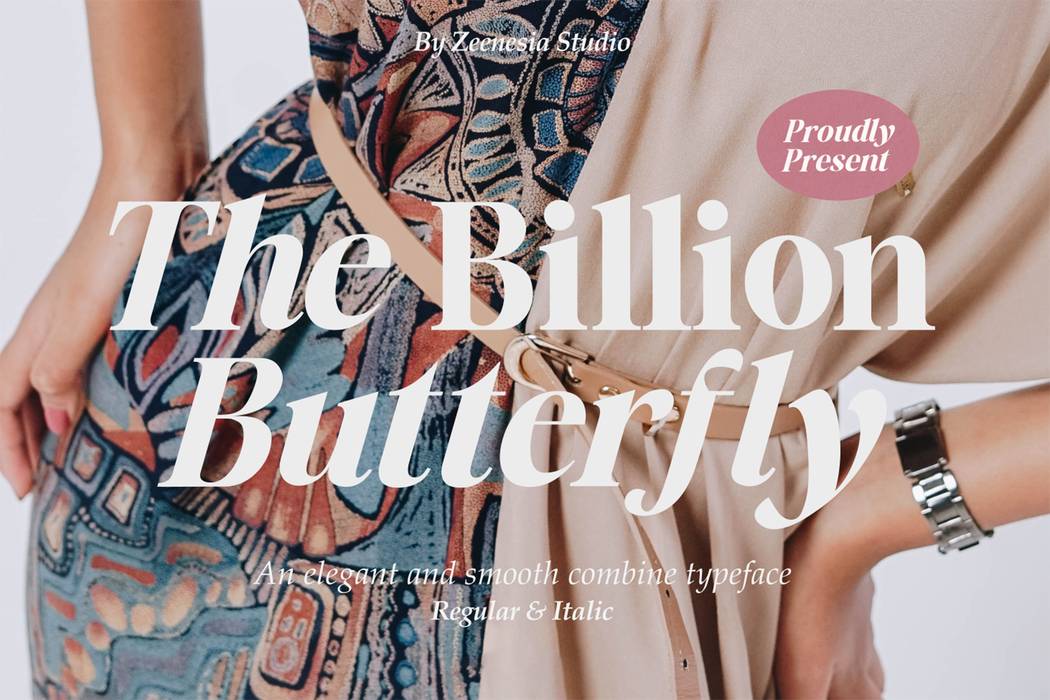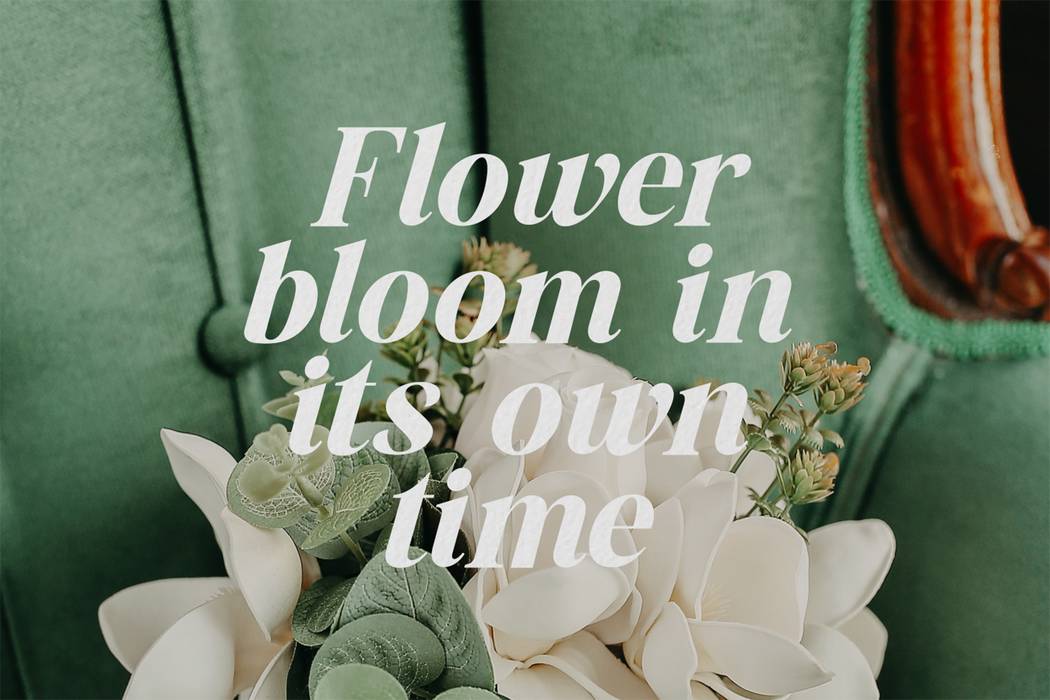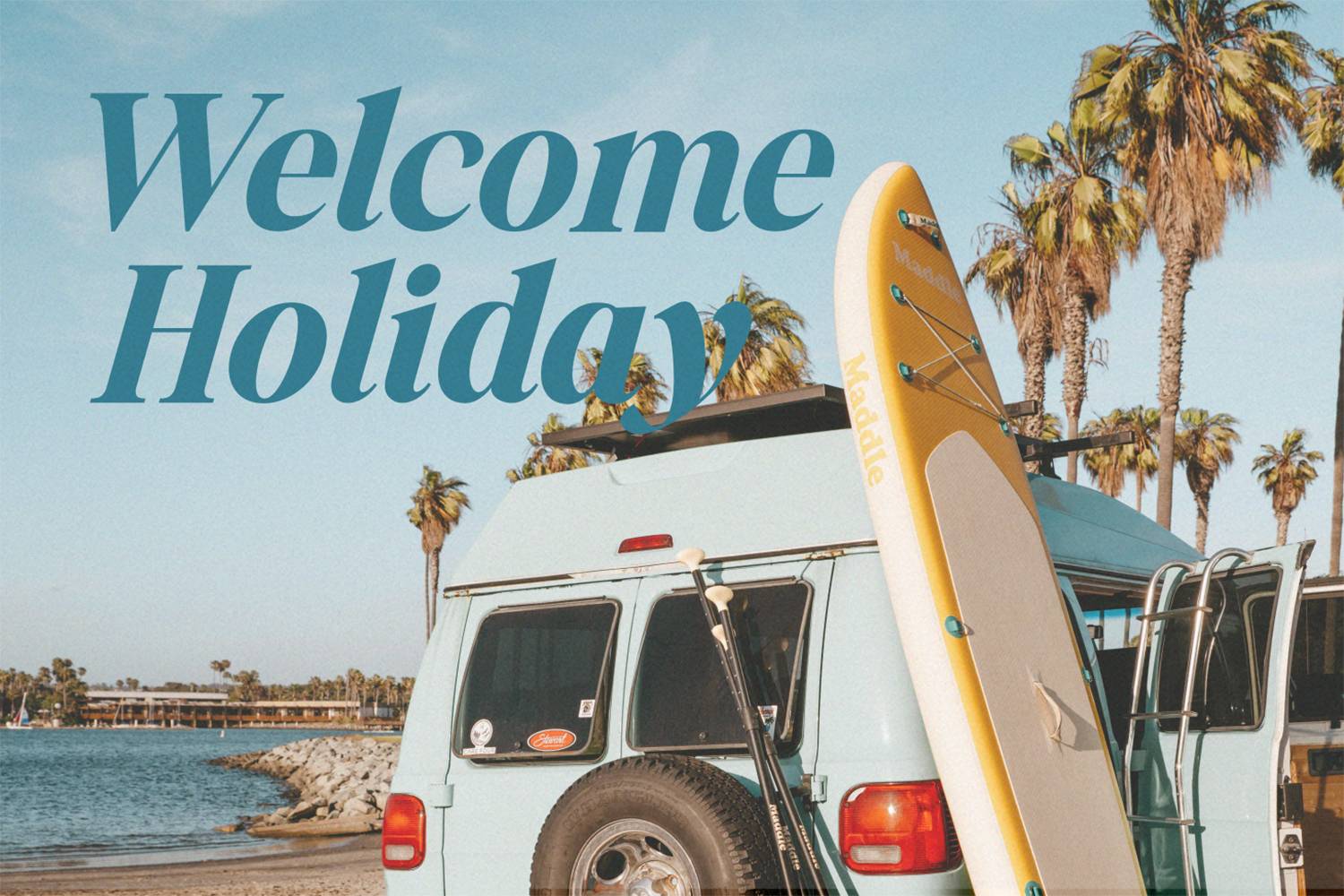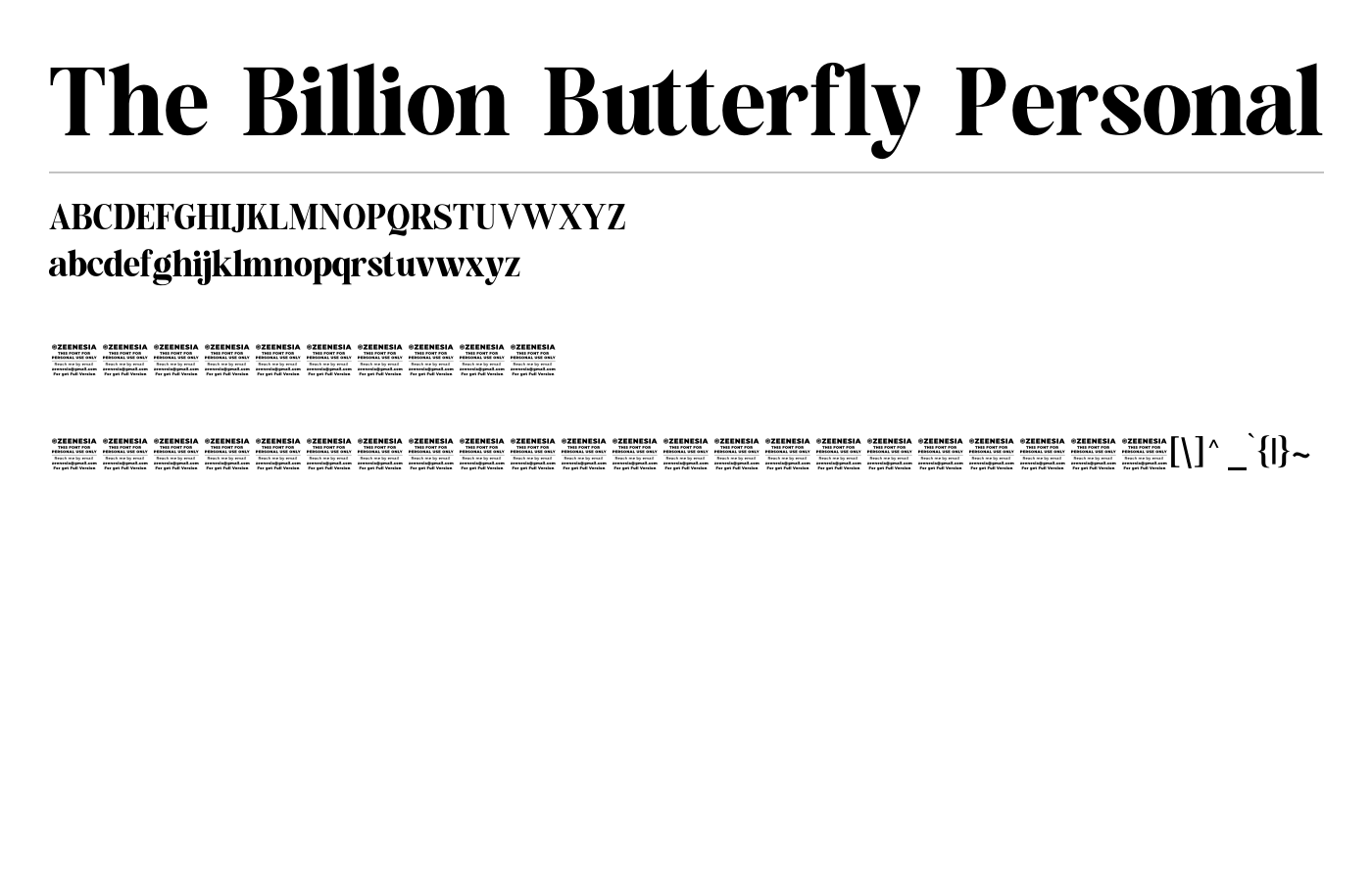
The Billion Butterfly Personal is a bold, modern serif font with strong contrast between thick and thin strokes and sharp, elegant serifs that give it a refined yet confident character. Its distinctive letterforms, including the unique curved tail on the 'y' and a double-story 'g,' make it perfect for sophisticated branding, editorial headlines, and luxury packaging where a blend of classic style and contemporary flair is desired. This font shines in settings that require a touch of elegance and authority while maintaining clear readability and visual impact.
The Billion Butterfly Font
About The Billion Butterfly Font
| Font family | The Billion Butterfly Font |
| Designer | © Zeenesia 2023 |